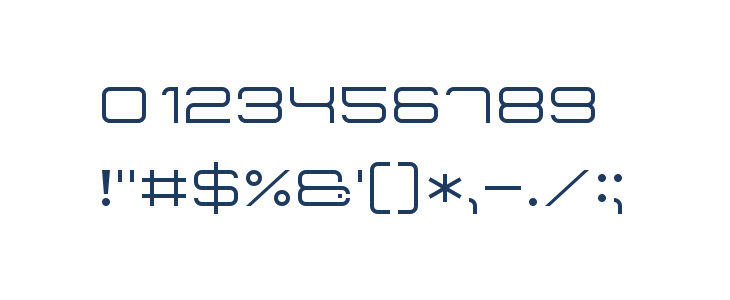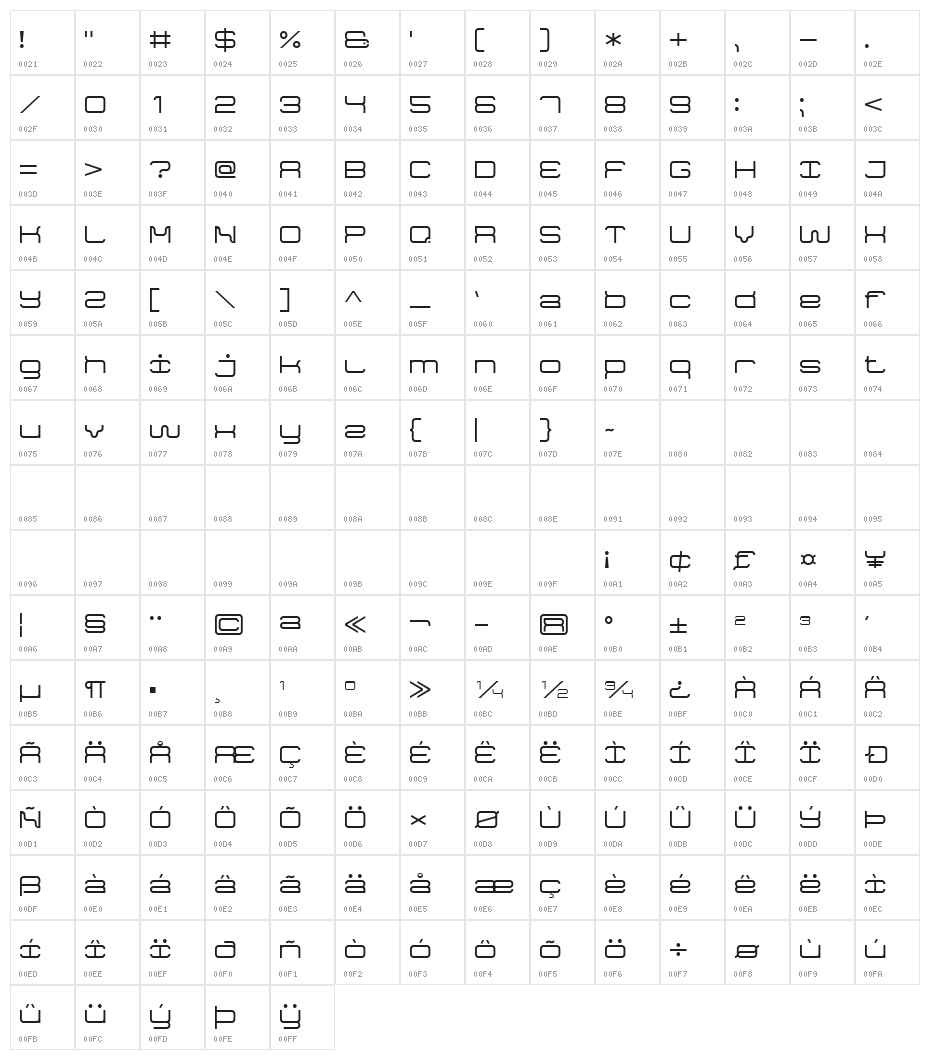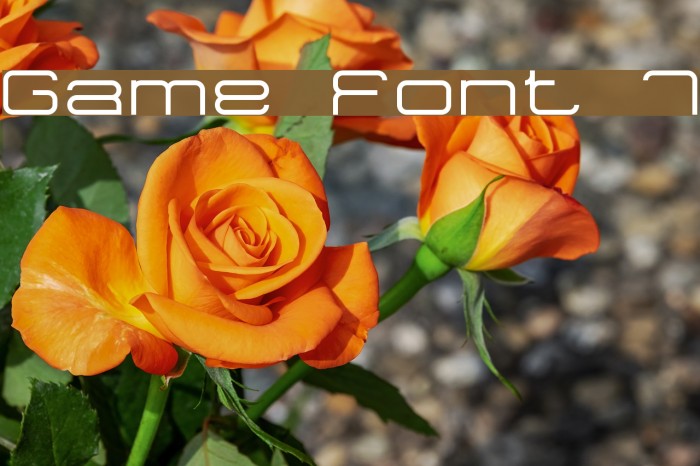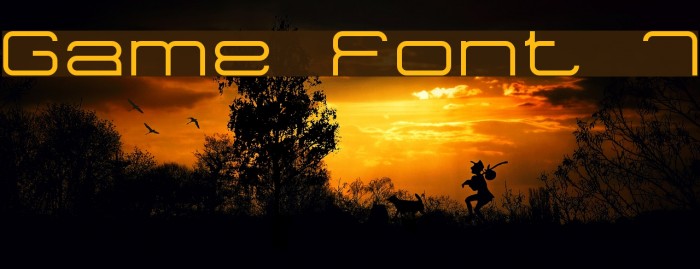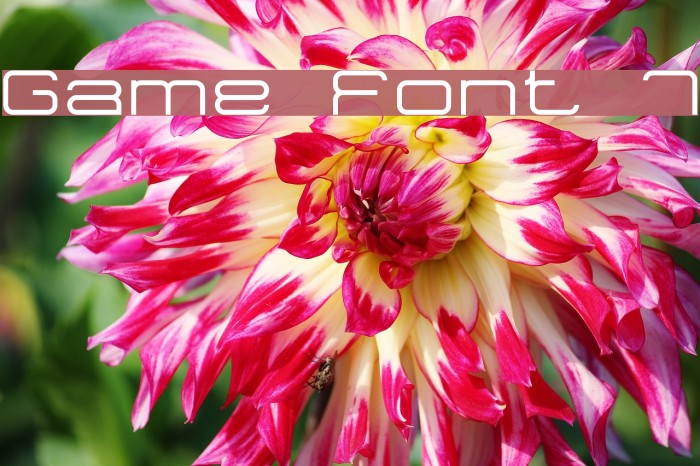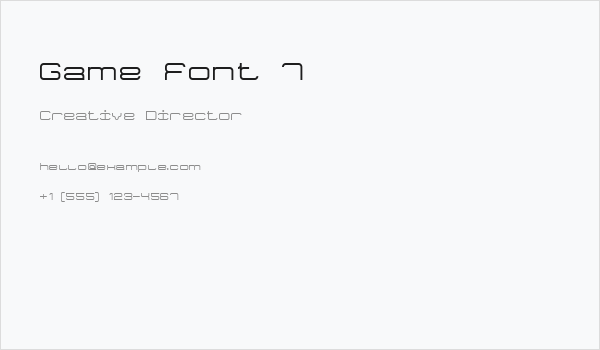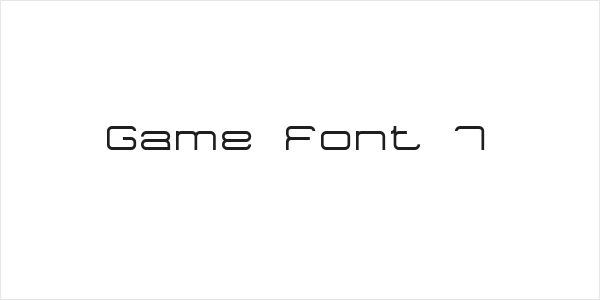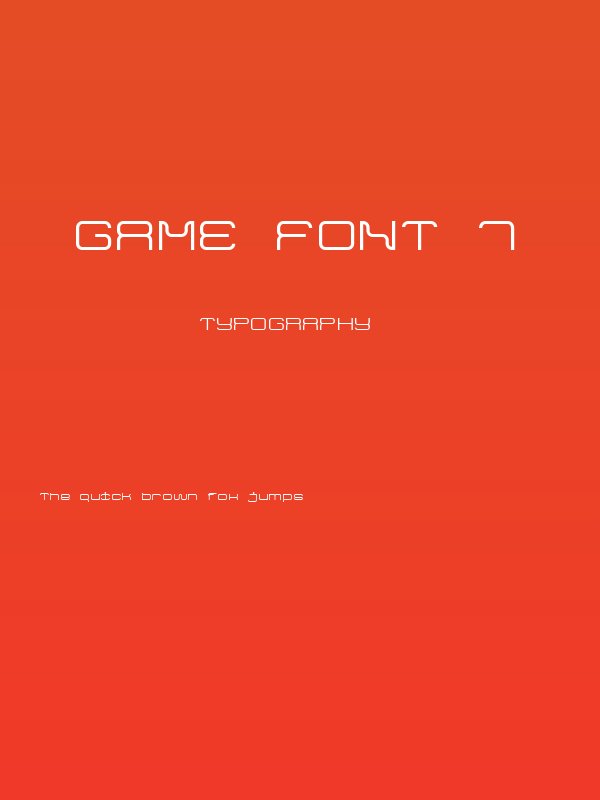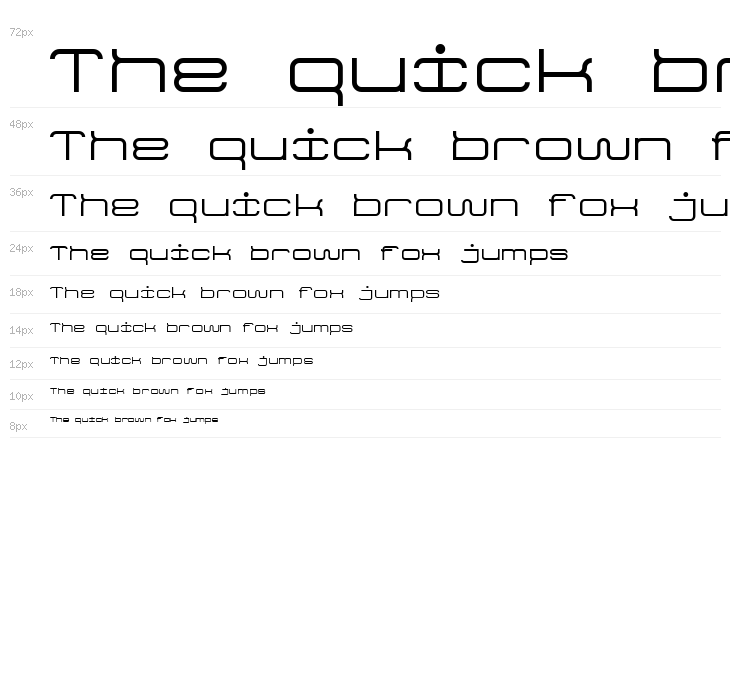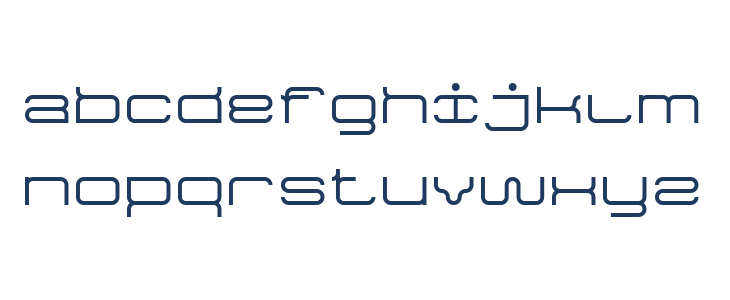
Game Font 7 Font
Game Font 7 Description
This font features a futuristic and geometric design, characterized by rounded edges and a consistent line weight throughout. The characters are constructed with a modular approach, giving them a digital and modern appearance. The uppercase and lowercase letters maintain a uniform height, enhancing readability while retaining a unique style. The numerals and special characters follow the same design principles, ensuring a cohesive look across all elements. The font's clean lines and open shapes make it suitable for digital interfaces and gaming environments, where clarity and a modern aesthetic are essential.
| Use Case | Headlines, Logos, Digital interfaces |
| Proposed Projects | Ideal for video game interfaces, tech branding, digital displays, and modern posters. |